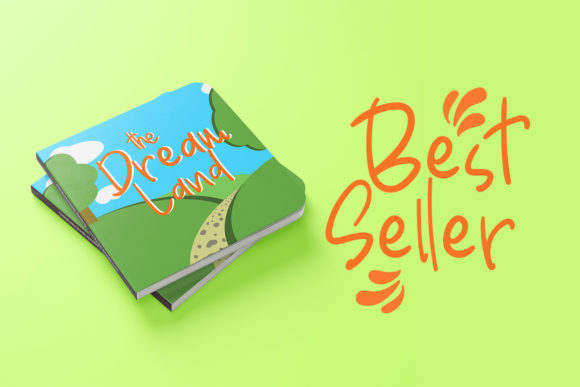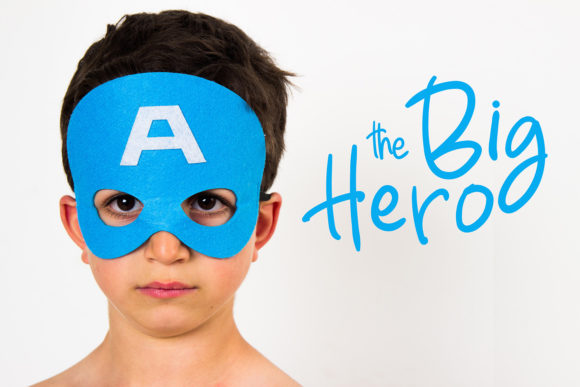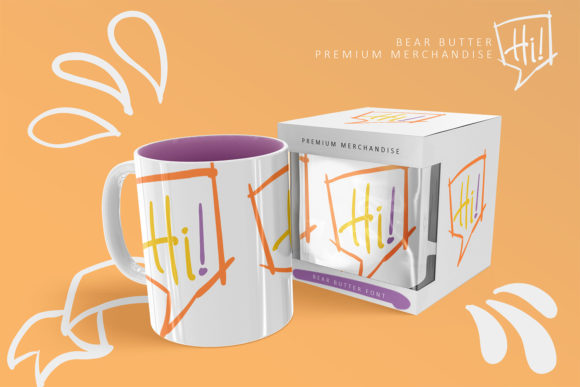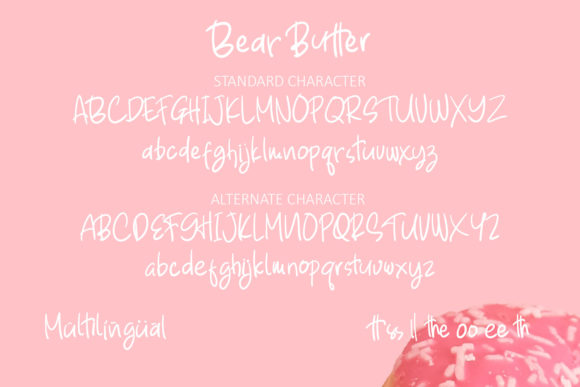
Bear Butter Font: A Delicious Addition to Your Design Toolbox
Have you ever stared at a blank design project, feeling stuck and unsure of where to begin? It’s a familiar feeling for many creatives, but it doesn’t have to be a barrier to creating something amazing. Sometimes, all it takes is the right tool to spark inspiration and get those creative juices flowing.
Enter the Bear Butter Font, a simple and fun display font that’s perfectly suited for a wide variety of projects. Whether you’re designing a logo, creating a social media post, or crafting a presentation, Bear Butter Font is the perfect companion to help bring your vision to life.
- Unique Characteristics: Bear Butter Font features a unique, hand-drawn aesthetic with subtle imperfections, giving it a distinctive and organic feel.
Bear Butter Font Review
As a designer, I was excited to dive into the Bear Butter Font and see what it had to offer. Here’s my honest review:
- Unique Character Set: The Bear Butter Font has a fun and quirky character set that’s sure to add some personality to any project.
- Customizable: The font is highly customizable, with a range of options for adjusting the weight, style, and spacing.
- High-Quality Glyphs: The glyphs are crisp and clear, making it perfect for body text or headlines.
- Limited Support for Special Characters: The font doesn’t support a wide range of special characters, which may be a limitation for designers who need to work with non-English languages.
- Not Ideal for Small Text: Due to its playful nature, the font can become difficult to read when used in small text sizes.
- May Not be Suitable for Formal Projects: The font’s quirky nature may not be suitable for formal projects or corporate designs.
The Bear Butter Font is a fun and playful font that’s perfect for projects that need a bit of personality. While it may have some limitations, its unique character set and high-quality glyphs make it a great choice for designers who want to add some whimsy to their work.
Getting the Most Out of Bear Butter Font
For optimal results, use Bear Butter Font in conjunction with a bold or italic style to add emphasis and visual interest.
Experiment with different font sizes and colors to create a unique and eye-catching design.
Bear Butter Font is ideal for:
1. Branding and logo design
2. Social media graphics and ads
3. Print materials such as business cards and brochures
4. Digital presentations and reports
Playfair Display is an elegant and luxurious serif font, perfect for creating high-end designs. It features intricate details and ornate flourishes, making it ideal for use in logos, titles, and headings. Compared to Bear Butter Font, Playfair Display is more formal and sophisticated, while Bear Butter Font has a more playful and casual feel.
Great Vibes is a modern script font that exudes a sense of relaxation and friendliness. It’s perfect for use in designs that require a touch of personality and whimsy. Compared to Bear Butter Font, Great Vibes is more free-flowing and expressive, while Bear Butter Font has a more structured and rounded feel.
Pacifico is a beautiful and elegant script font that’s perfect for creating a sense of calm and serenity. It’s ideal for use in designs that require a touch of sophistication and elegance. Compared to Bear Butter Font, Pacifico is more refined and polished, while Bear Butter Font has a more playful and casual feel.
Yes, the Bear Butter Font is designed to be highly customizable. It supports a wide range of OpenType features, including ligatures, swashes, and stylistic sets. Additionally, the font’s design allows for easy modification using font editing software.
Q: What is the recommended font size and line height for optimal readability with Bear Butter Font?
For optimal readability, we recommend using a font size between 12pt and 24pt, paired with a line height of at least 1.2 times the font size. This will ensure that the text remains clear and legible, even at smaller font sizes.